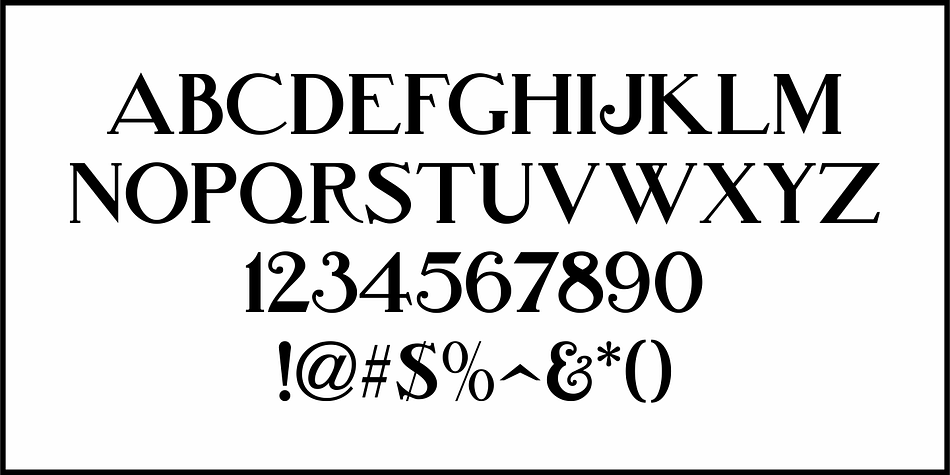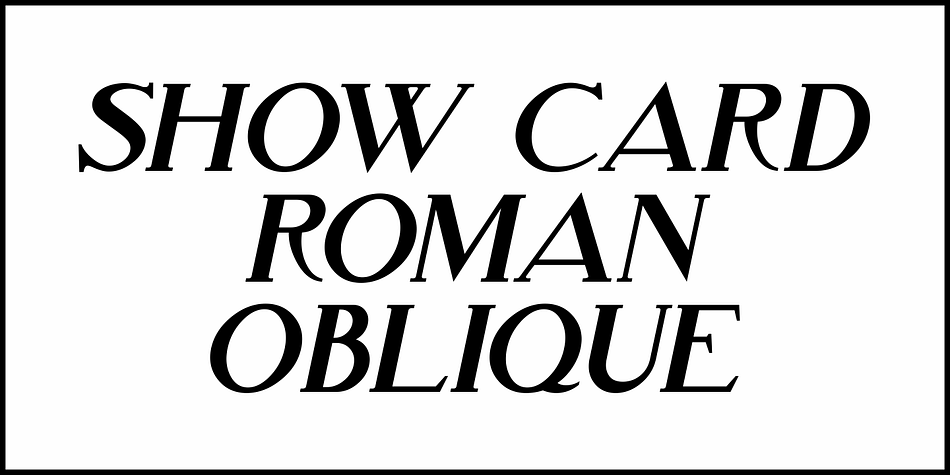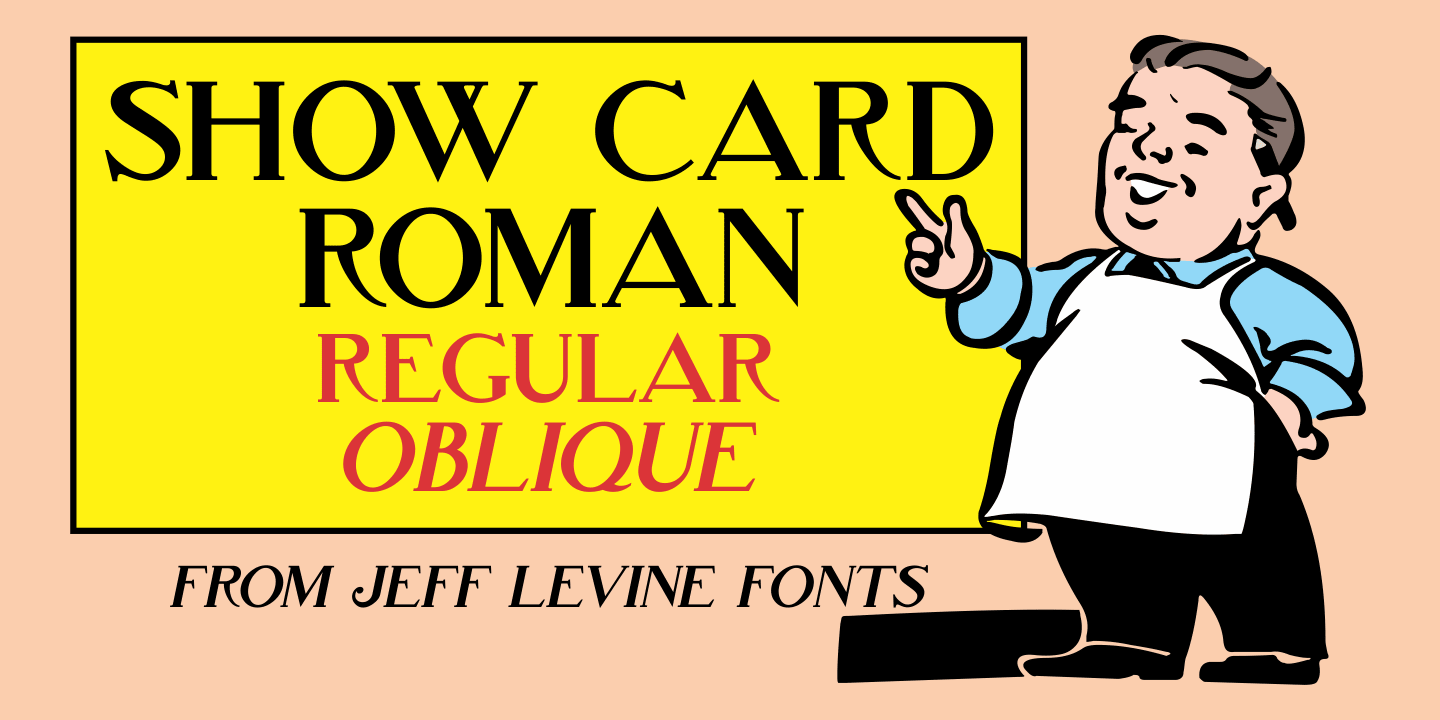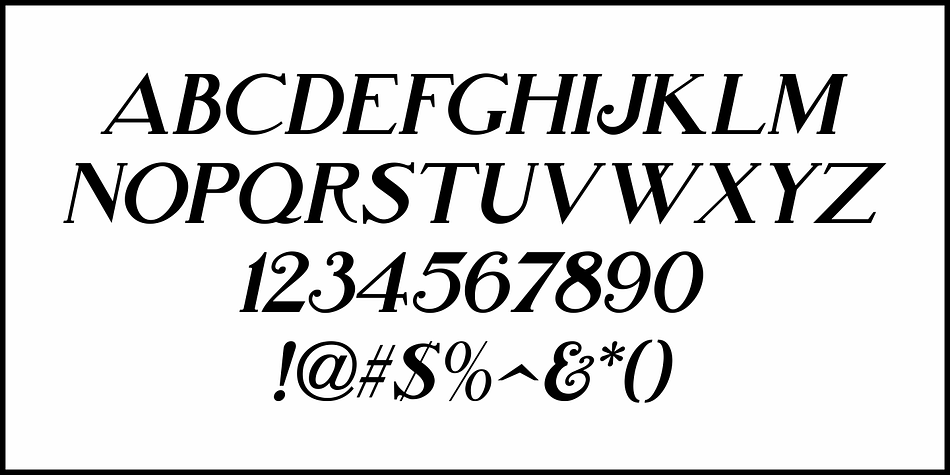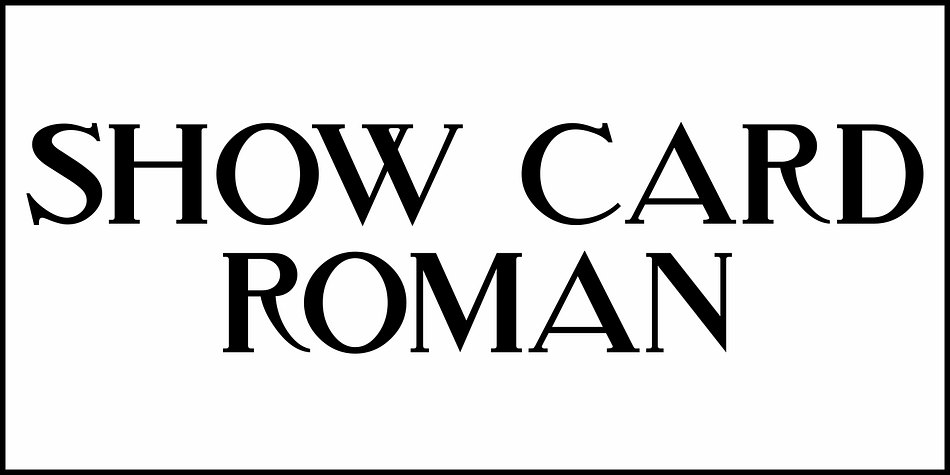
SHOW CARD ROMAN JNL
Designed by Jeff Levine, Show Card Roman JNL is a display serif font family. This typeface has two styles and was published by Jeff Levine Fonts.
Art Nouveau serif capitals and numerals in the 1917 instructional book “A Roman Alphabet and How to Use It” were the inspiration for Show Card Roman JNL; available in both regular and oblique versions.